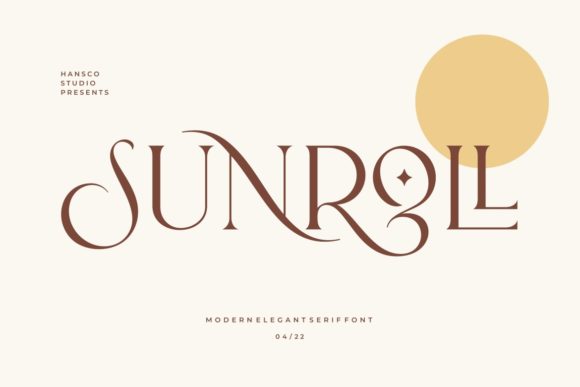
Introducing Sunroll Font, the perfect choice for your Beauty Brand! Crafted by the talented HansCo, this thin lettered and delicate serif font is here to elevate your designs to new heights. With its PUA encoding, accessing all the unique glyphs and swashes is a breeze, allowing you to create stunning and captivating visuals effortlessly.
Embrace the beauty of Sunroll Font and let it mesmerize you with its versatile style. Whether you're designing a logo, packaging, or social media graphics, this font will add a touch of elegance and sophistication to your brand. Its delicate serifs and thin letterforms evoke a sense of grace and refinement, making it an ideal choice for any beauty-related project.
Let your creativity shine through as you explore the endless possibilities that Sunroll Font offers. Its captivating charm and attention to detail will surely captivate your audience, leaving a lasting impression. Whether you're aiming for a classic and timeless look or a modern and trendy vibe, this font has got you covered.
Transform ordinary text into extraordinary art with Sunroll Font's extensive collection of glyphs and swashes. Add flourishes, ligatures, and decorative elements effortlessly, enhancing the visual appeal of your designs. Stand out from the crowd and create a unique brand identity that resonates with your target audience.
Experience the magic of Sunroll Font and let it breathe life into your projects. Its versatility knows no bounds, adapting effortlessly to any style or theme you desire. Whether you're going for a romantic and dreamy aesthetic or a bold and modern approach, this font will exceed your expectations.